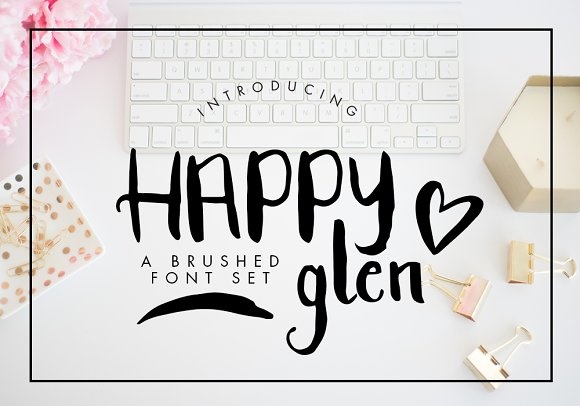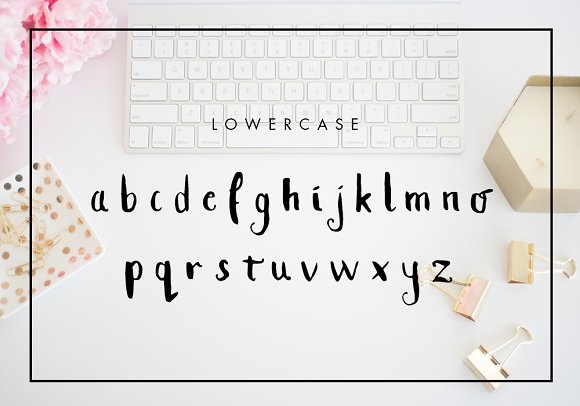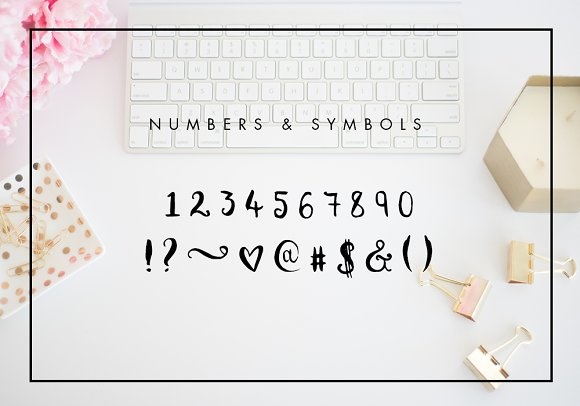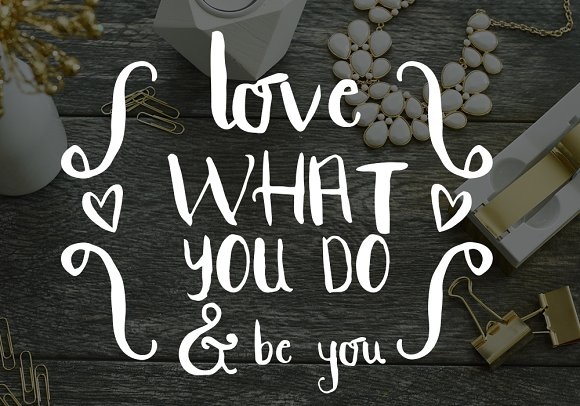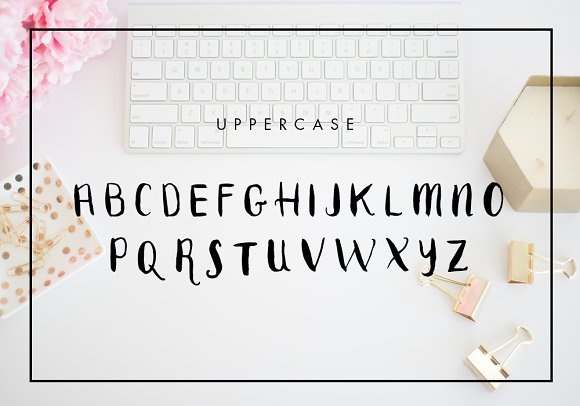
Happyglen Font
About Happyglen Font
Happyglen is a beautiful brushed font, ideal for use in a wide range of friendly projects. This font comes with beautiful swashes, and can give your designs a gorgeously casual look.